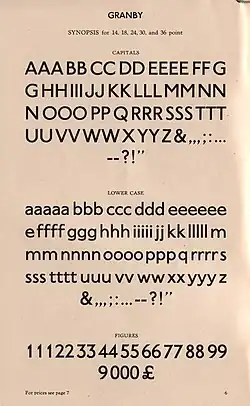
Granby (typeface)
Granby is a sans-serif typeface designed and released by the Stephenson Blake type foundry of Sheffield in 1930.[1][2] It is influenced by the Johnston typeface or Railway Alphabet (1916), the proprietary face of what became London Underground, as well as by Gill Sans (1928), which had recently been released and become popular.[3][4] Roy Millington's history of Stephenson Blake also cites Futura as an influence.[5]
Like both Johnston and Gill Sans, Granby has an upper-case influenced by Roman square capitals and a lower-case inspired by traditional "old-style" serif letters, making it an example of what is now called the humanist style of sans-serif fonts.[6] Granby's regular style is a robust design bolder than conventional body text fonts, making it suitable for headings and posters and also for legible text at smaller sizes.
Granby resembles Johnston with diamond-shaped dots (tittles) on the "i" and "j" and a wide "a".[7][8] A difference is its "g", a "single-storey" design influenced by handwriting. According to Mike Ashworth of Transport for London, London Transport itself made some use of Granby by the 1960s, due to the limited availability of Johnston type.[9]
Several styles of Granby were released to extend the design, including condensed weights, an inlined style[10] and 'Granby Elephant', an ultra-bold design.[11] As with many sans-serifs, rather than a true italic, an oblique was offered, in which the letters were slanted but not altered to take on more handwriting influences.
While it was never as popular as Gill Sans on the commercial market, Granby nonetheless remained in use with revivals in phototypesetting and digital versions.[7] A digitisation of some weights is sold by Elsner+Flake and Scangraphic; Red Rooster Fonts has also digitised the Elephant style.[11][12][13] It was appropriately used in adverts by the London company Granby Cycles in the 1930s.[14]
Wayfarer, by Jeremy Tankard, is a loose revival of the condensed style, commissioned by Sheffield City Council as their corporate font based on its local heritage.[3][15][16] (It also has some influences of Stephenson Blake's well-known Grotesque series.) Jeremy Mickel's Specter is a loose adaptation with true italic and an inline version drawn by Douglas Hayes.[4] Dieter Hofrichter's Halifax is also in the same style.[17]